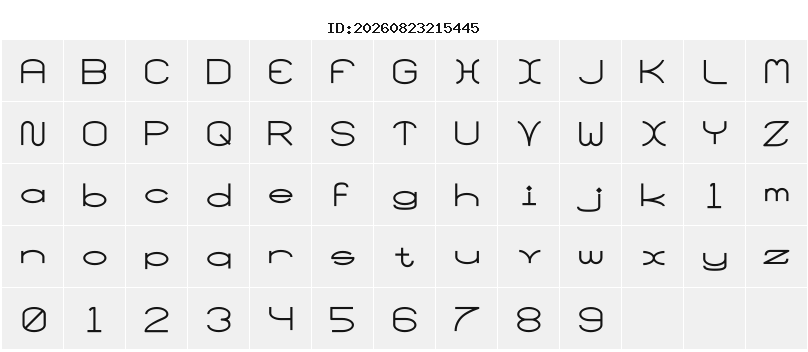
SantaMonciaMF Preview
About SantaMonciaMF.ttf
SantaMonciaMF.ttf is a modern, elegant sans-serif font designed for ultimate readability and visual harmony. Perfect for branding, headlines, web design, and print materials.